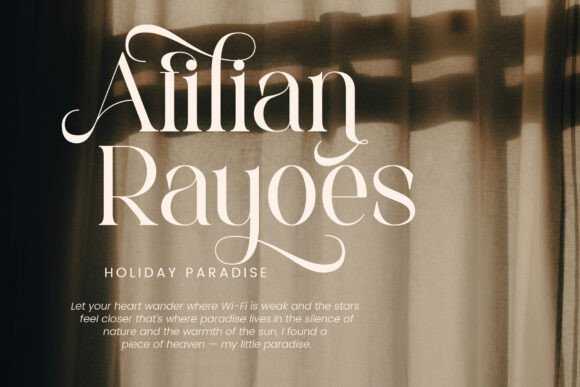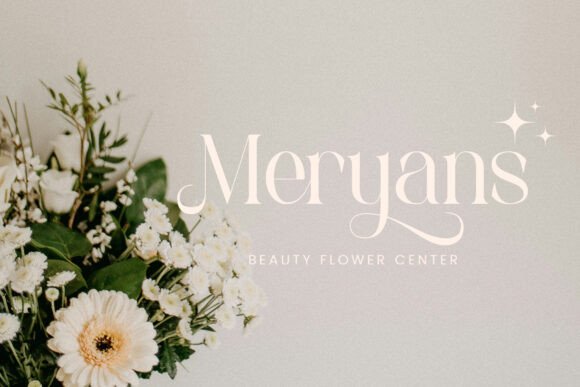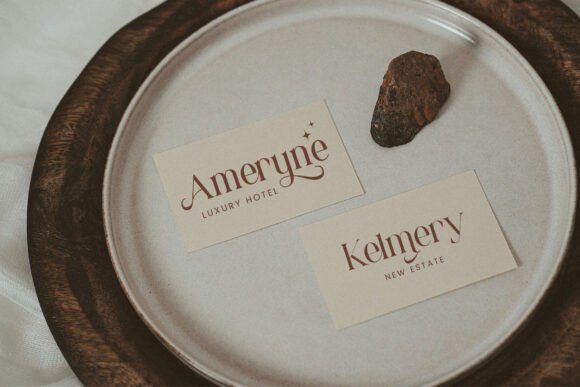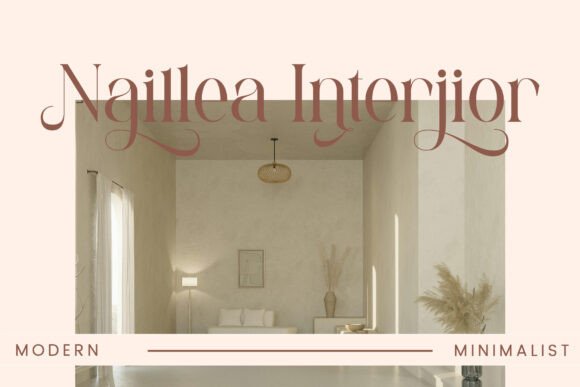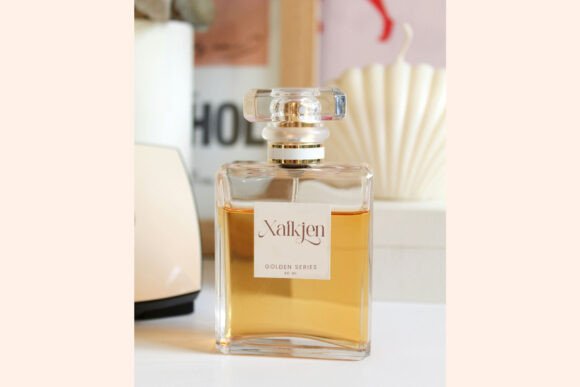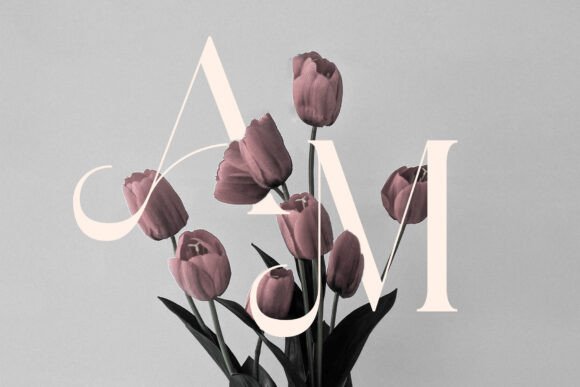
Introduction to Michola Font Font
Fonts play a crucial role in design, and the Michola Font font is a typeface that brings both character and versatility to any project. Whether you’re working on a branding project, a website, or a print design, the Michola Font font offers a unique style that can elevate your work.
Michola is an elegant and bold serif font.
Fall in love with its incredibly versatile style and use it to create gorgeous wedding invitations, beautiful stationary art, eye-catching social media posts, and much more .
Key Features of Michola Font Font
Why Choose Michola Font Font?
The Michola Font font is more than just a typeface – it’s a design tool that helps you communicate your message with style and clarity. Its unique character set and versatile design make it suitable for a wide range of applications, from elegant invitations to bold headlines.
With its carefully crafted letterforms and balanced proportions, the Michola Font font ensures readability and visual appeal across all mediums.
What makes Michola Font font special?
The Michola Font font stands out with its unique design, exceptional readability, and versatility across various design applications.